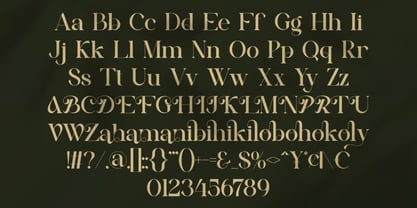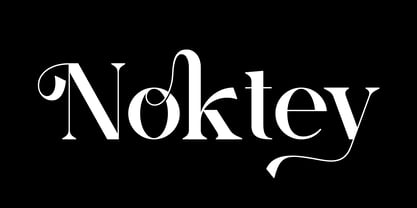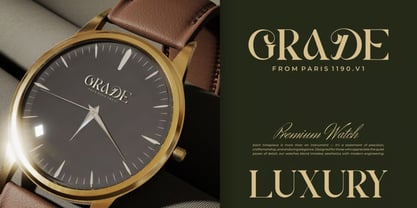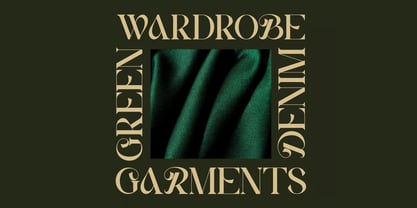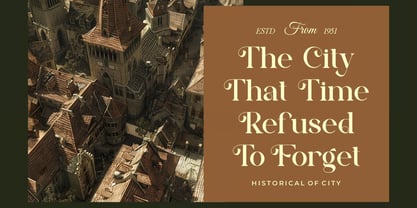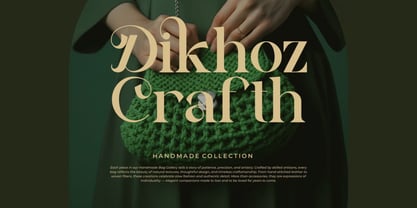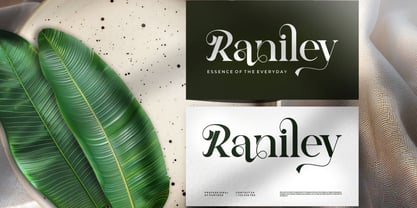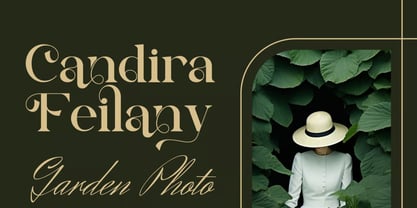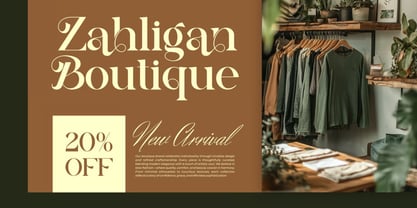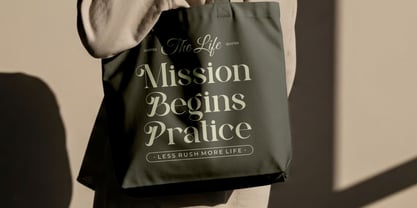
Noktey
Noktey is a modern and classy serif font designed to bring sophistication, elegance, and versatility to every creative project. Featuring smooth letterforms, refined serif details, and beautifully crafted ligatures and alternates, Noktey offers a luxurious typographic experience that enhances both modern and timeless design aesthetics.
Carefully designed for branding professionals, creatives, and designers, Noktey combines graceful structure with stylish character variations, allowing you to create unique and memorable typography with ease. Its balanced proportions and elegant details make it ideal for projects that require a premium and professional appearance.
Whether you're creating luxury logos, invitation cards, movie titles, business branding, book covers, fashion campaigns, or editorial layouts, Noktey delivers a polished and sophisticated visual identity that leaves a lasting impression.
✿ Key Features:
• Modern Classy Serif Design: Elegant letterforms with a contemporary luxury aesthetic.
• Stylish Ligatures & Alternates: Creative character variations for unique typography.
• Uppercase & Lowercase Letters: Complete character set for versatile design applications.
• Numbers & Punctuation: Essential glyphs for professional branding and editorial work.
• Smooth & Refined Letterforms: Designed for readability and visual elegance.
• Premium Typography Style: Perfect for luxury and high-end creative projects.
• Optimized for Print & Digital: Excellent performance across all design platforms.
• Versatile Creative Use: Suitable for branding, publishing, packaging, and advertising.
✿ Perfect For:
• Branding & Logo Design: Create memorable and sophisticated visual identities.
• Luxury & Fashion Branding: Perfect for premium products and upscale businesses.
• Invitation Cards & Stationery: Ideal for weddings, events, and elegant occasions.
• Movie Titles & Posters: Add cinematic beauty and professional styling.
• Book Covers & Editorial Layouts: Enhance publishing projects with timeless typography.
• Business Cards & Corporate Branding: Deliver a polished and professional impression.
• Social Media & Marketing: Create stylish promotional content and digital campaigns.
Elevate your creative projects with Noktey—a modern classy serif font featuring elegant ligatures, beautiful alternates, and refined letterforms. Perfect for luxury branding, logos, invitations, movie titles, book covers, fashion campaigns, editorials, and sophisticated visual identities.